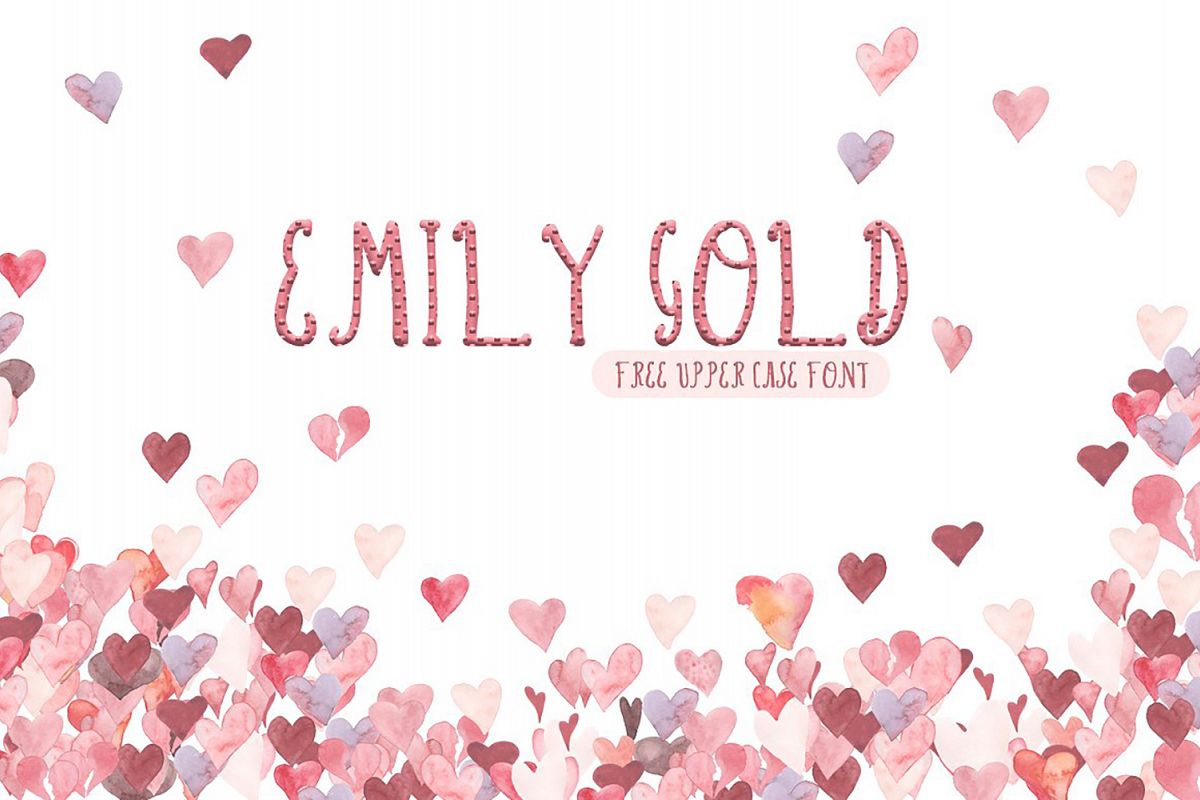
Emily Gold Font
Emily Gold
Introducing Emily Gold Script Font! A cheeky little dry calligraphy script font. This font is in Uppercase with numbers. You can use this font to create T-Shirts, Posters, Wedding Card, Business Card, Banners and more. We have created this font with an imperfect flow that will give your text a unique & natural look.